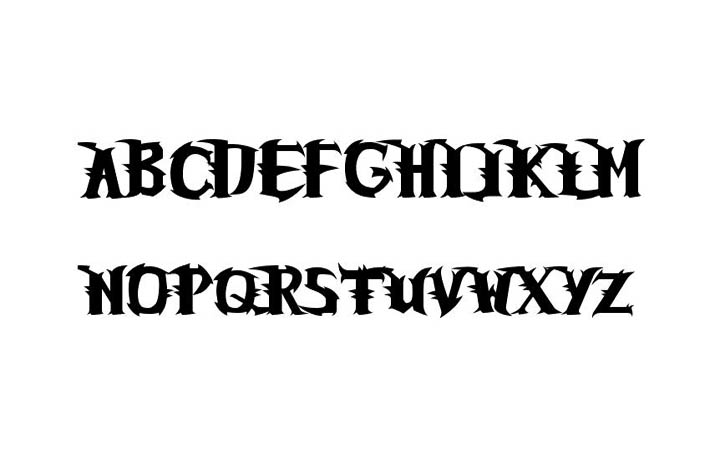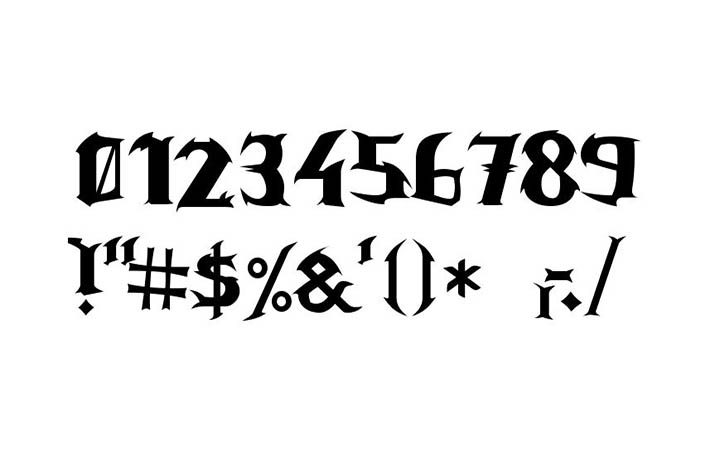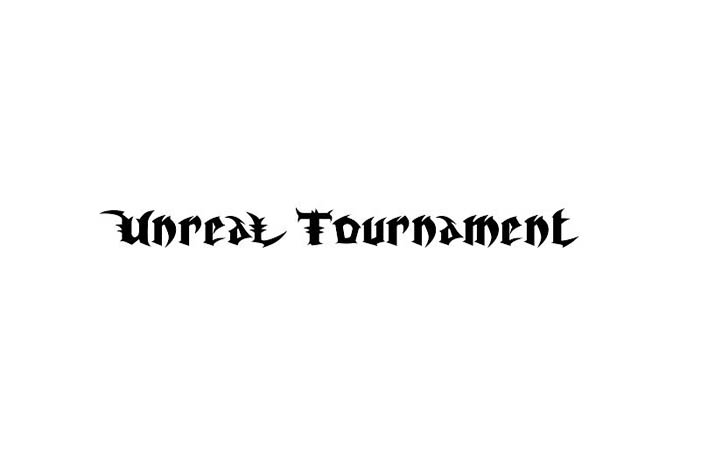
Unreal Tournament Font is a modern gothic typeface that is very interesting for Tattoos. It includes alternative glyphs to get your project’s perfect modern black letter font.
It was designed and published by Rah’Dick. This font family comes in a single-weight TTF format. It includes 221 glyphs and 3045 binary stored kerning pairs. Moreover, it also supports 66 languages.
All the textures of this font are made with thick strokes with stylish curves that add extra creativity to the entire typeface. Moreover, it has sharp edges to slightly oblique strokes.
Try it out for an album or book cover, banners, headers, decorative elements, tattoo designs, logos, gaming posters, or maybe a poster with a Gothic aesthetic.
| Style: | Gothic, Modern, Display |
- This font can be used for a wide range of projects, including retro-themed t-shirt designs, product designs, special event cards, product packaging, social media banners, decorative elements, signs, flyers, brochures, banners, advertisements, and headers. , custom tattoo lettering, branding, logo design, sports logos, and maybe even a gothic-themed poster.